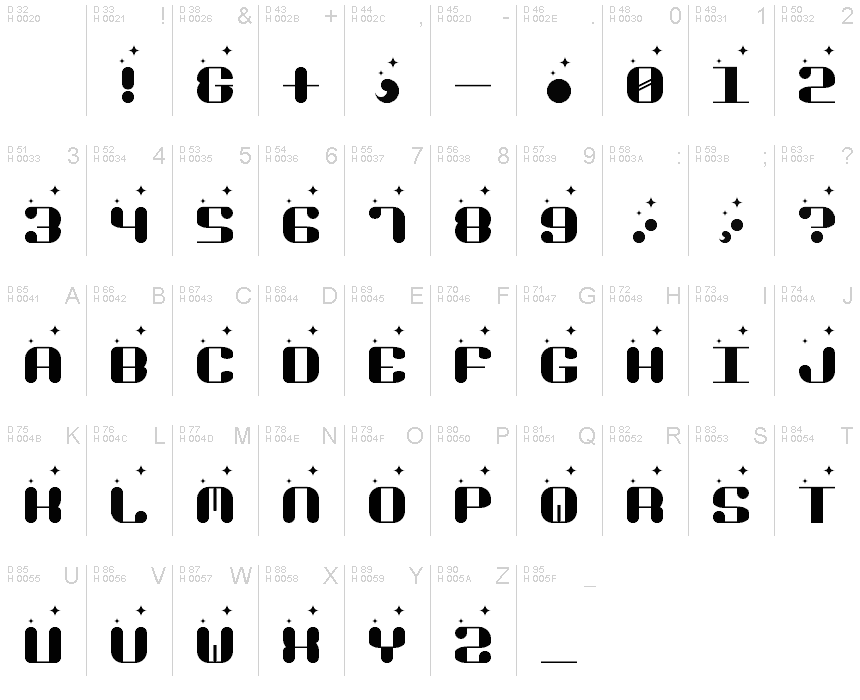
Video Dames Regular
Designer description: Another of my many doodles. Fun to make!
Finally, a design where all the diacritics blend in and look natural!